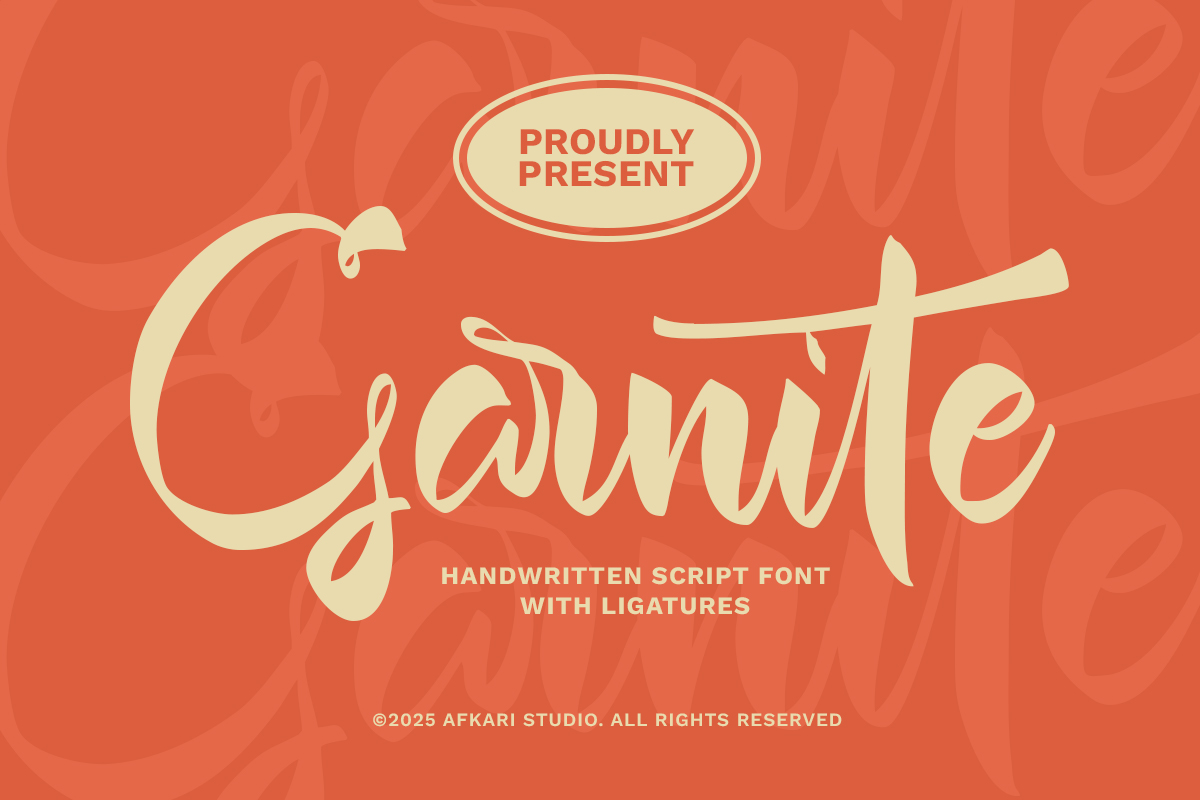
Garnite - Handwritten Script Font Font
Designed by Afkari Studio
About Garnite - Handwritten Script Font
Garnite – Handwritten Script Font brings a touch of elegance and authenticity to your designs. Crafted to feel like real handwriting, Garnite flows with natural curves and gentle strokes that add a warm, personal feel to any project.